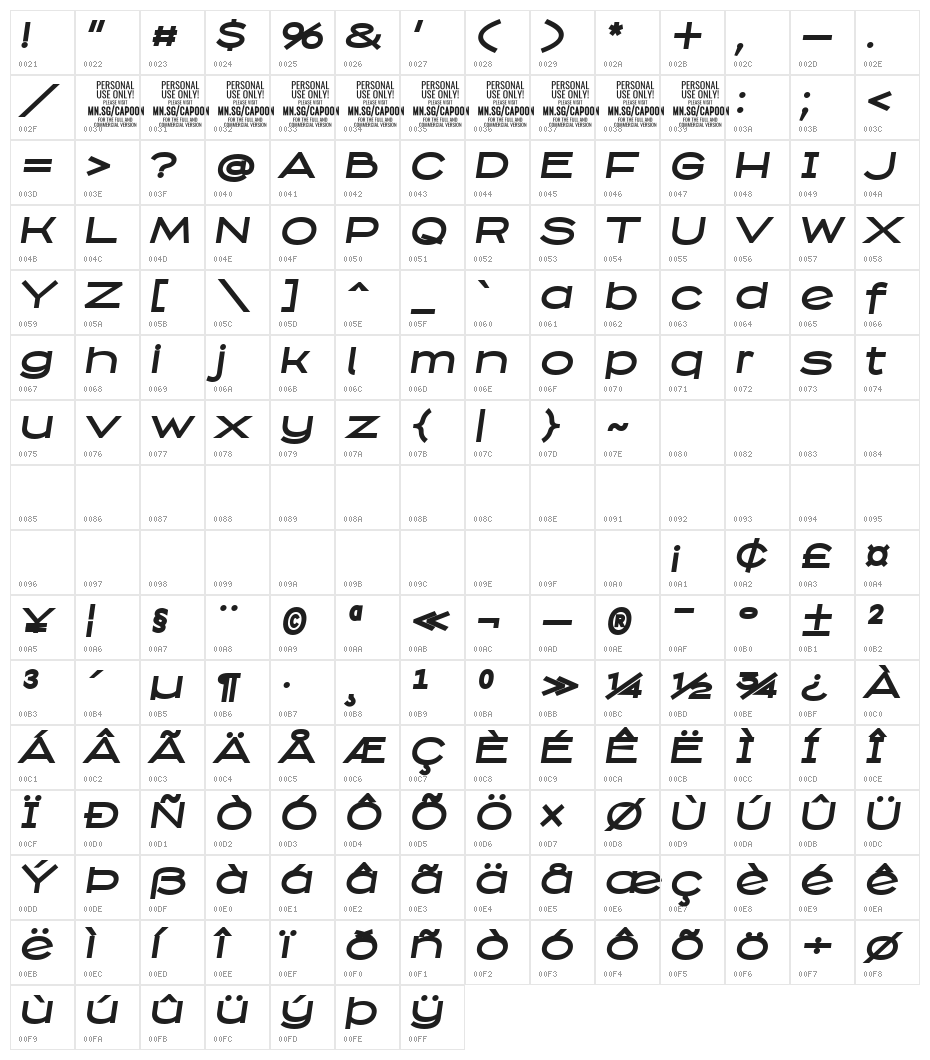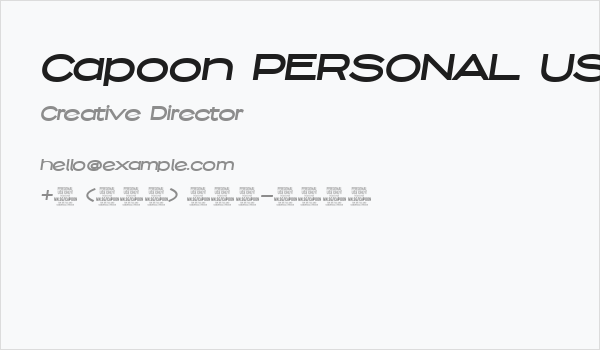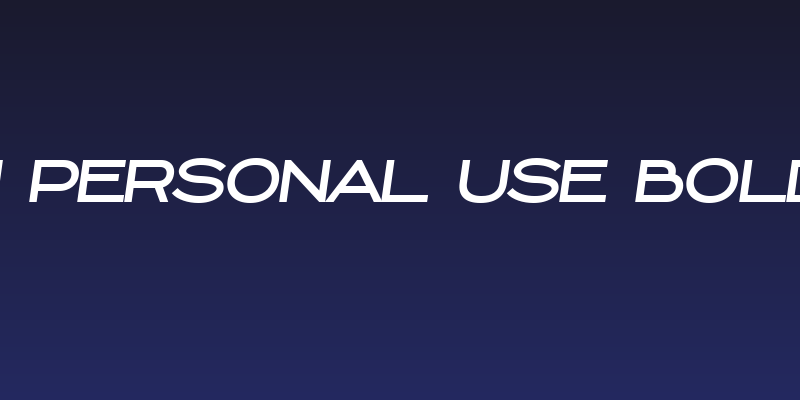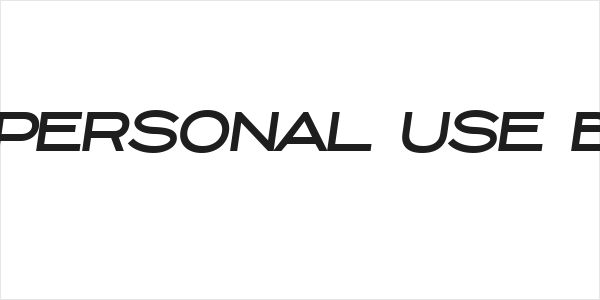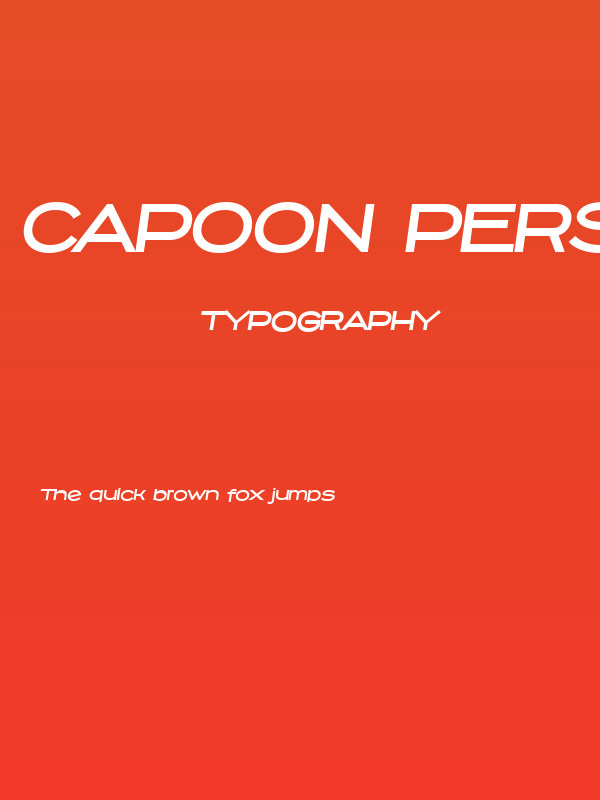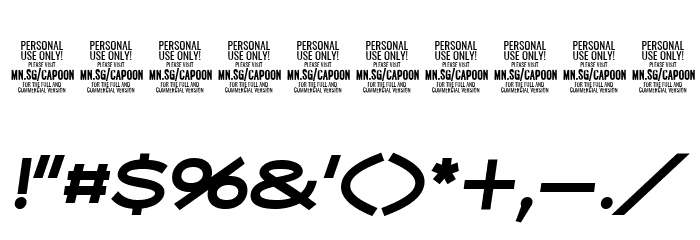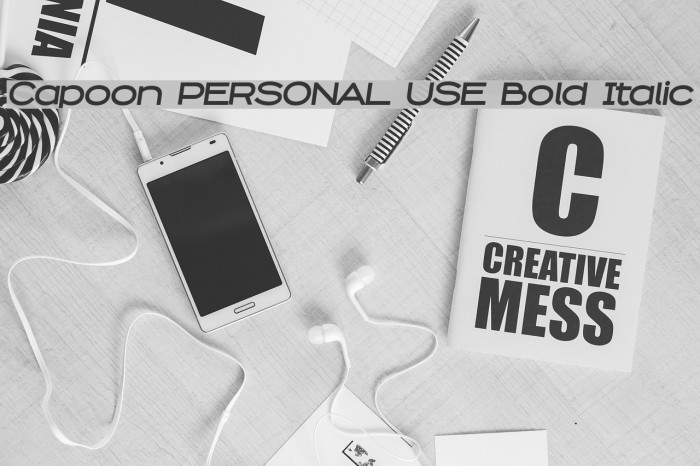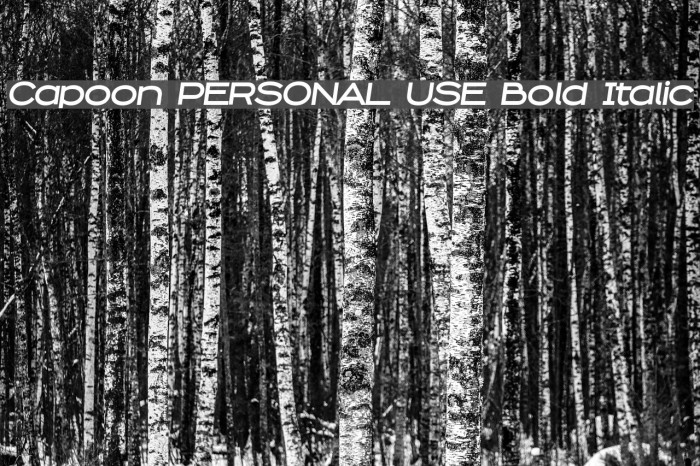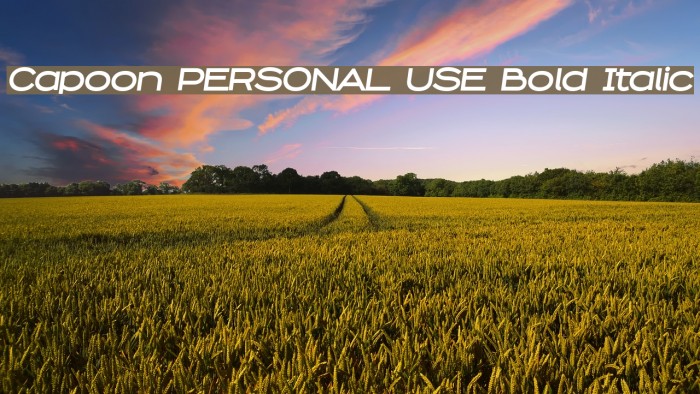
Capoon PERSONAL USE Bold Italic Font
Capoon PERSONAL USE Bold Italic Description
This bold italic font features a modern and sleek design with a forward-leaning slant that adds a dynamic and energetic feel. The characters are well-defined with a consistent stroke width, providing a strong and impactful appearance. The uppercase letters are slightly taller than the lowercase, maintaining a uniform look across the alphabet. The numerals and special characters are designed to match the overall style, ensuring coherence throughout. This font's boldness and italicization make it stand out, suitable for attention-grabbing headlines or titles.
| Proposed Projects | Ideal for branding, advertising, posters, and any project requiring a bold, modern look. |